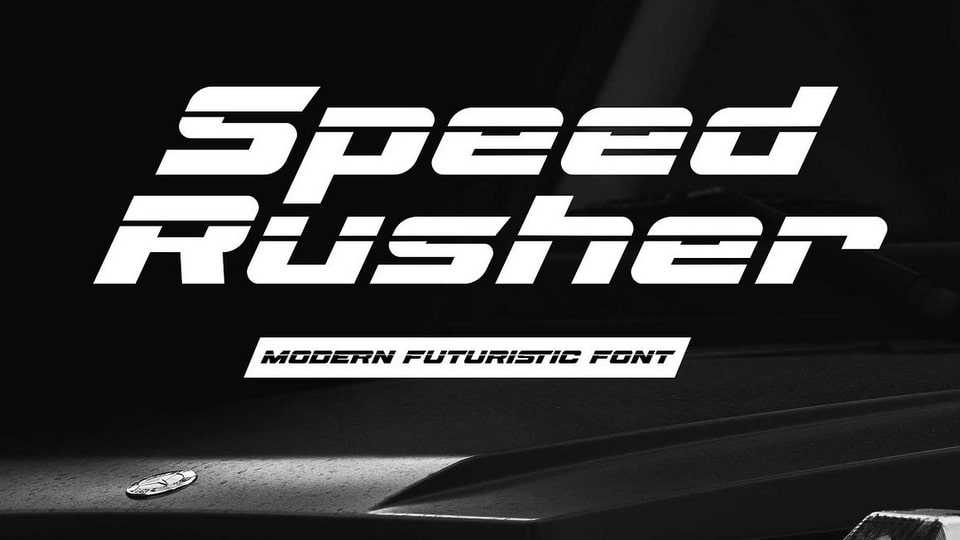
Download Speed Rusher font, an elegant, sporty typeface with a cutting-edge futuristic vibe, designed with sleek laser-cut letter effects and bold strokes.